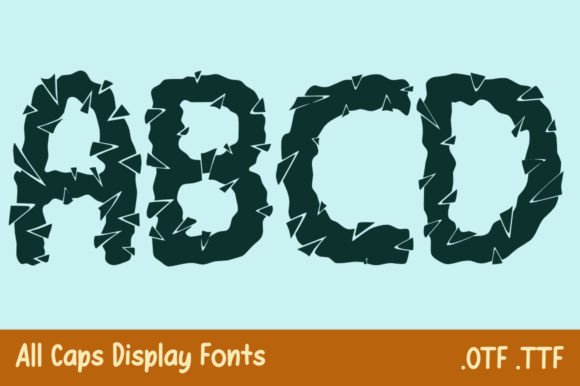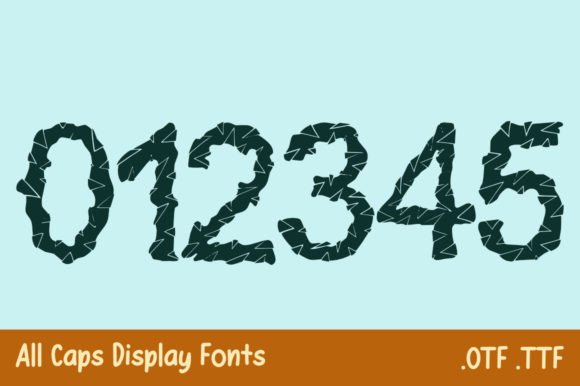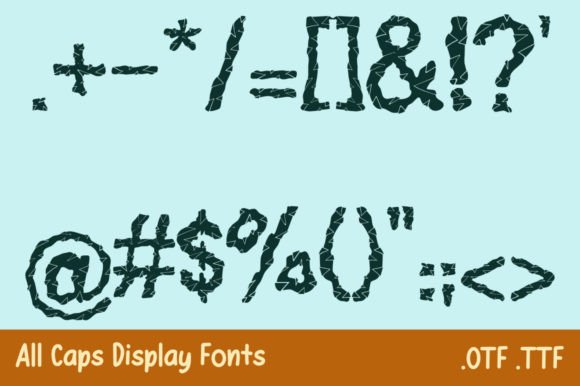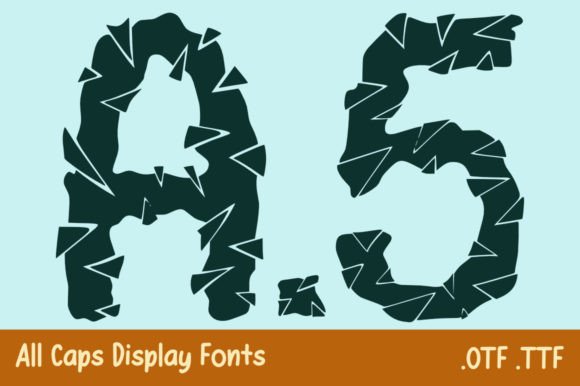
Introduction to Forest Hewn Font
Boost your designs with Forest Hewn, a captivating font that blends artistry and nature seamlessly.
This unique typeface features intricate letter cuts reminiscent of the mesmerizing patterns found in the heart of lush forests Let your designs flourish with an organic touch as Forest Hewn brings the beauty of nature to your words.
Key Features of Forest Hewn Font